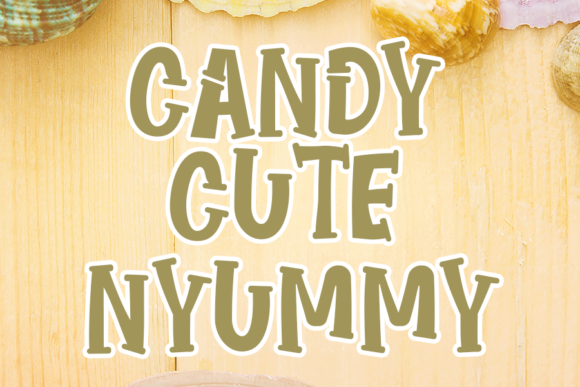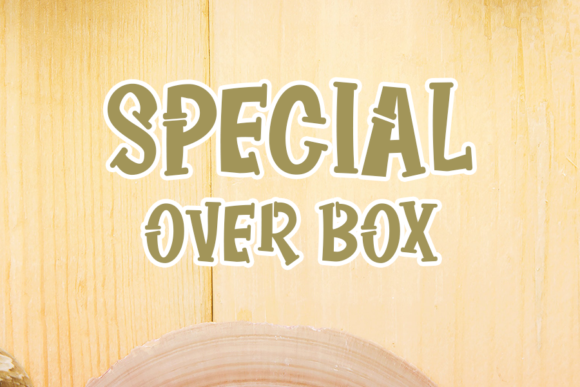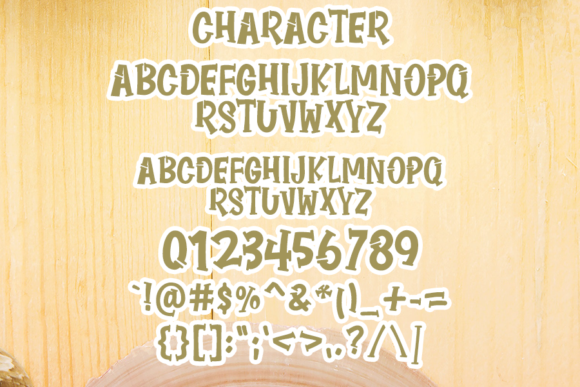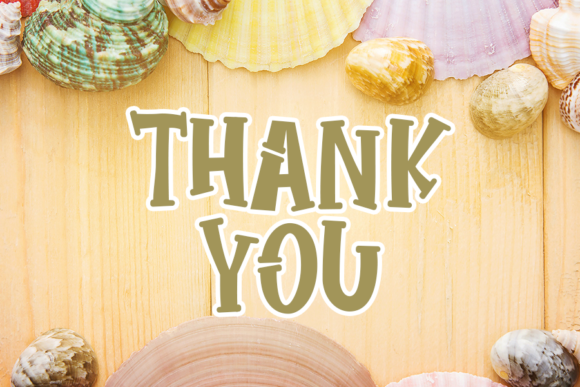
Introduction to Menthos Cupes Font
Have you ever found yourself staring at a blank page, desperate to bring your creative vision to life? The struggle is real, but with the right design tools, anything is possible. Today, we’re excited to introduce you to Menthos Cupes Font, a high-quality display font that’s sure to elevate your next creative project.
With its quirky charm and authentic feel, Menthos Cupes Font is the perfect addition to any designer’s toolkit. Whether you’re working on a free download project or a high-end commercial campaign, this enchanting font is sure to turn heads. Its transparent background makes it easy to use, and its unique character is guaranteed to make your design stand out from the crowd.
In this article, we’ll delve deeper into the world of Menthos Cupes Font, exploring its features, uses, and benefits for designers. So, let’s dive in and discover why this font is a must-have for any creative project.
Key Features of Menthos Cupes Font
- High-quality design for creative projects, perfect for logos, titles, and other design elements
- Transparent background, allowing for easy customization and versatility in design applications
- Includes a range of characters and symbols, making it suitable for both Latin and Cyrillic languages
- Unique, modern design with a touch of elegance, perfect for adding a sophisticated look to any creative project
Honest Review: Menthos Cupes Font
I recently stumbled upon the Menthos Cupes Font, a free download that caught my attention due to its unique design. As a designer, I appreciate high-quality fonts that can elevate a creative project to the next level.
Here are some aspects that work well for this font:
- ✨ Unique style that sets it apart from other fonts
- ✨ Versatile and suitable for a wide range of design projects
- ✨ Includes a transparent background, making it easy to customize
- ⚠️ Limited character set, which may not be suitable for complex designs
- ⚠️ Some characters may not display correctly on certain devices
Overall, the Menthos Cupes Font is a great addition to any designer’s collection. While it has its limitations, its unique style and versatility make it a valuable resource for creative projects. With some careful planning, it can be a great tool to enhance your designs.
Tips for Getting the Most Out of Menthos Cupes Font
For a transparent background, use the font with a white or light-colored background to make the text stand out. Experiment with different font sizes and styles to add depth and visual interest to your design.
The Menthos Cupes Font is ideal for creating eye-catching headings, titles, and logos. Its unique style and feel make it perfect for creative projects, such as branding, packaging, and advertising materials.